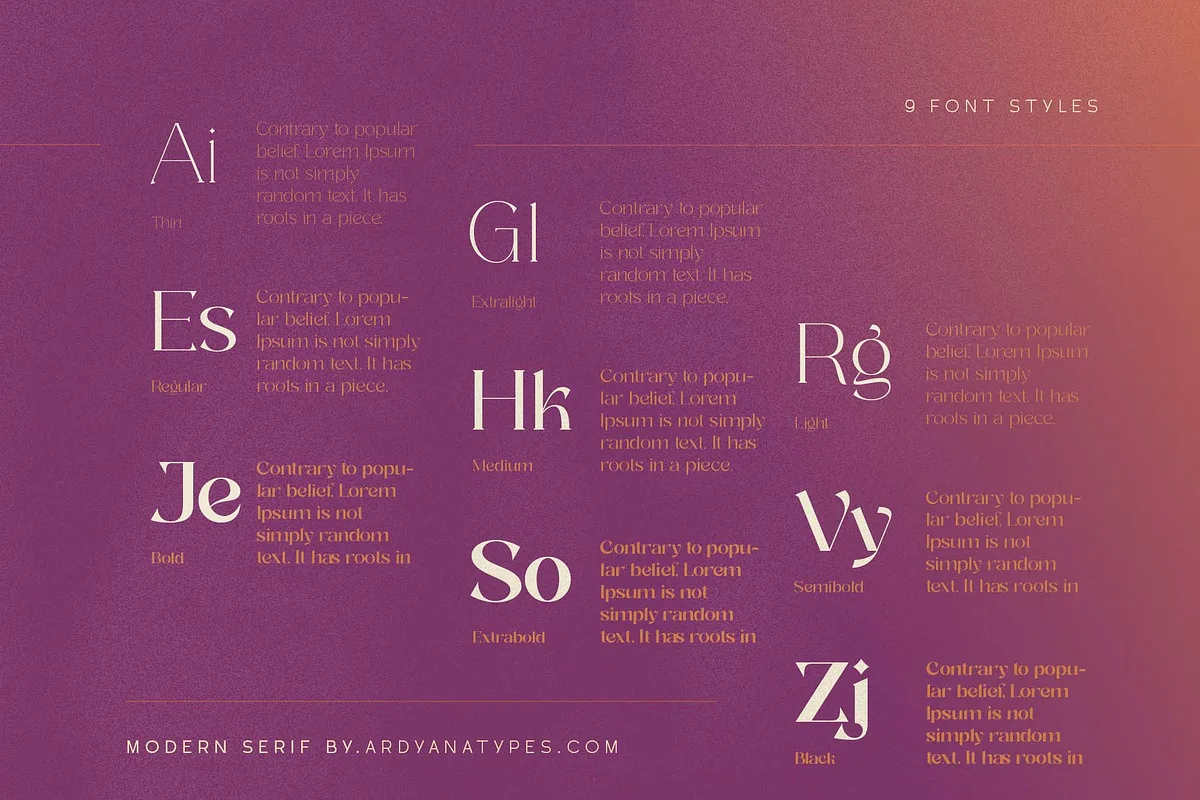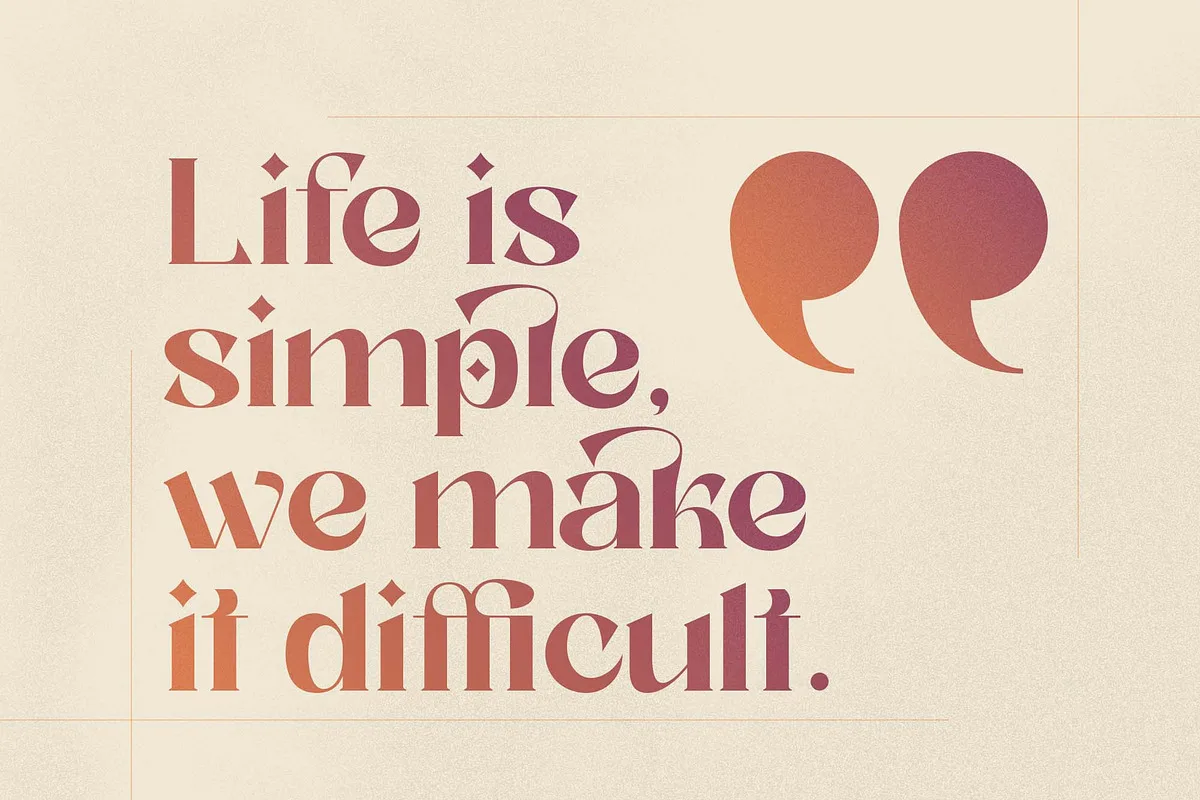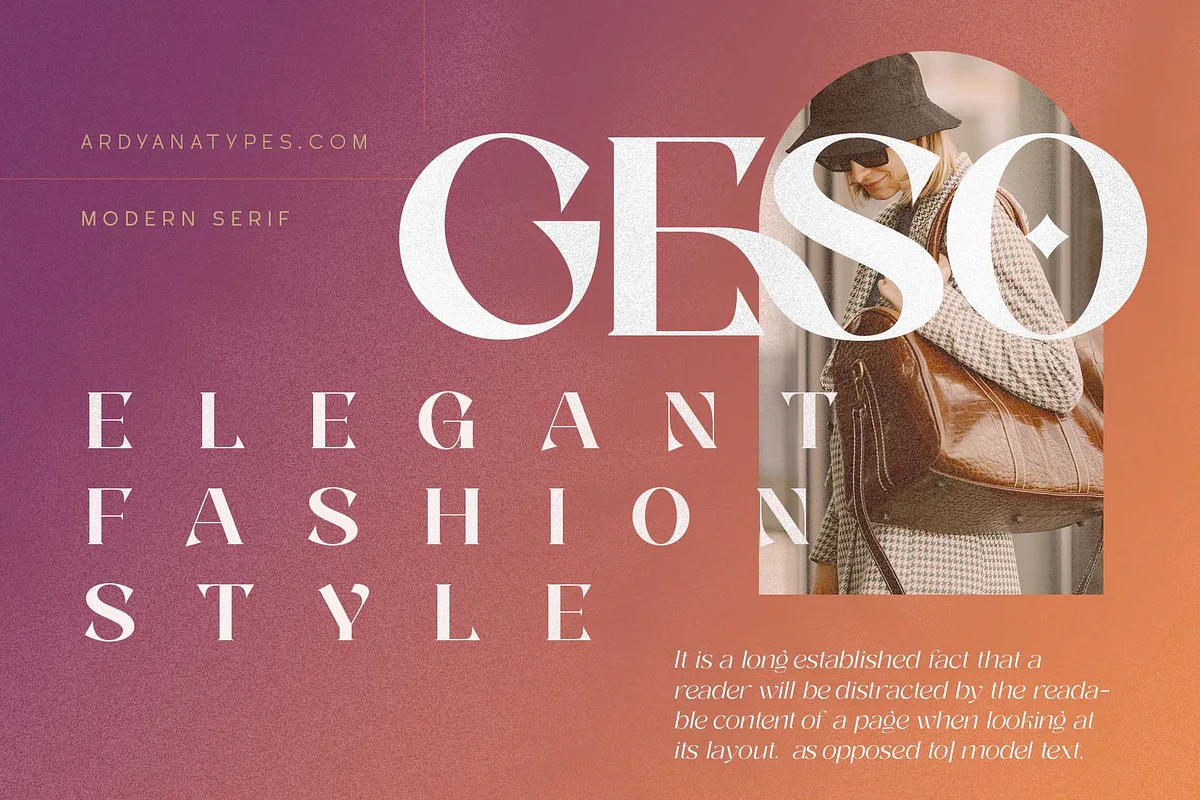
Zitter is a serif-style product font that looks luxurious and elegant. This font has many features that will make your designs look more beautiful and elegant. It is very suitable to be used as a type of logo and for branding your brand, and there is still much that you can do with Zitter Decorative Serif. Its unique shape adds a creative impression to it, so it can also use for any fancy, unique, vintage, and elegant themed designs.